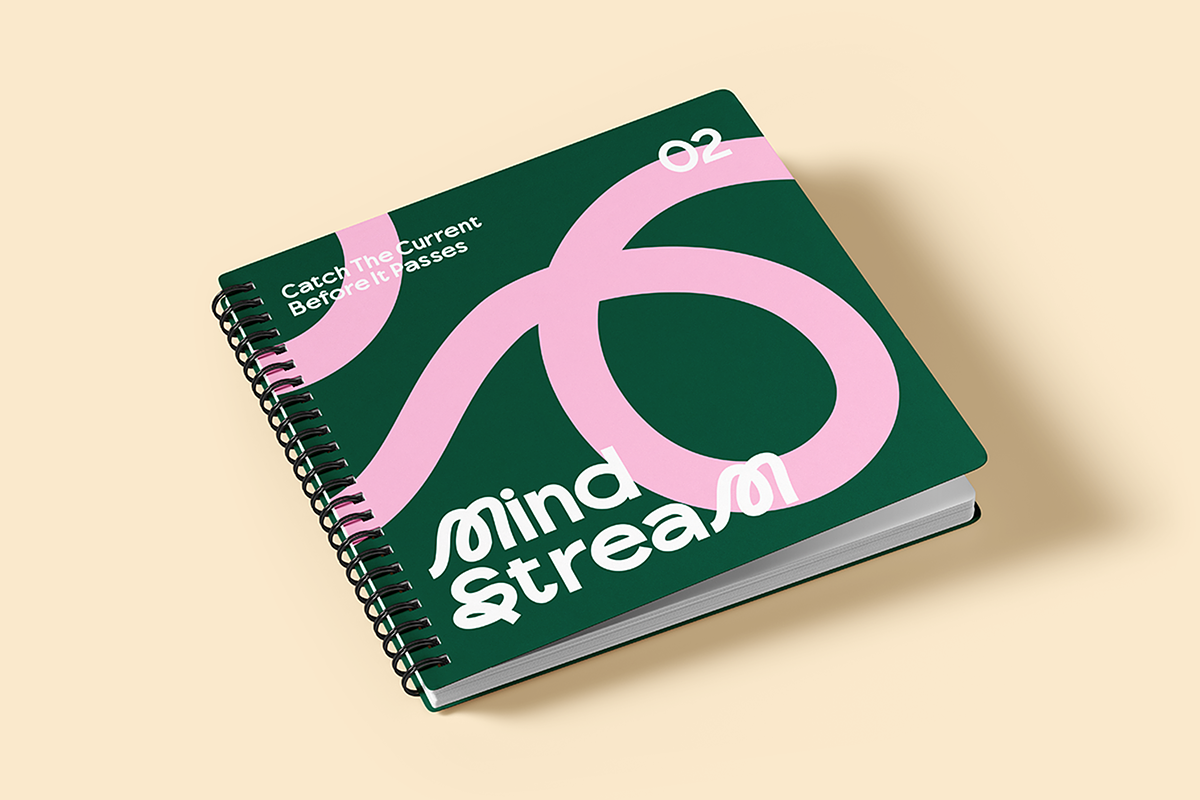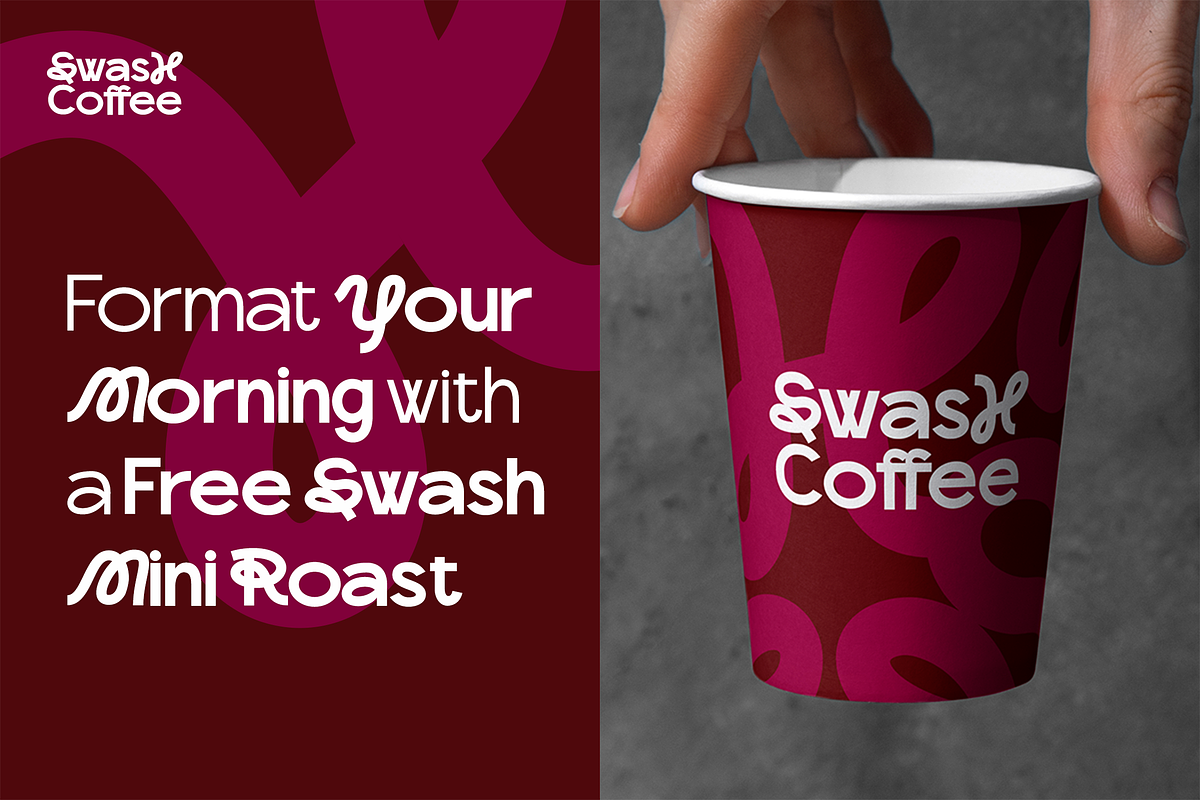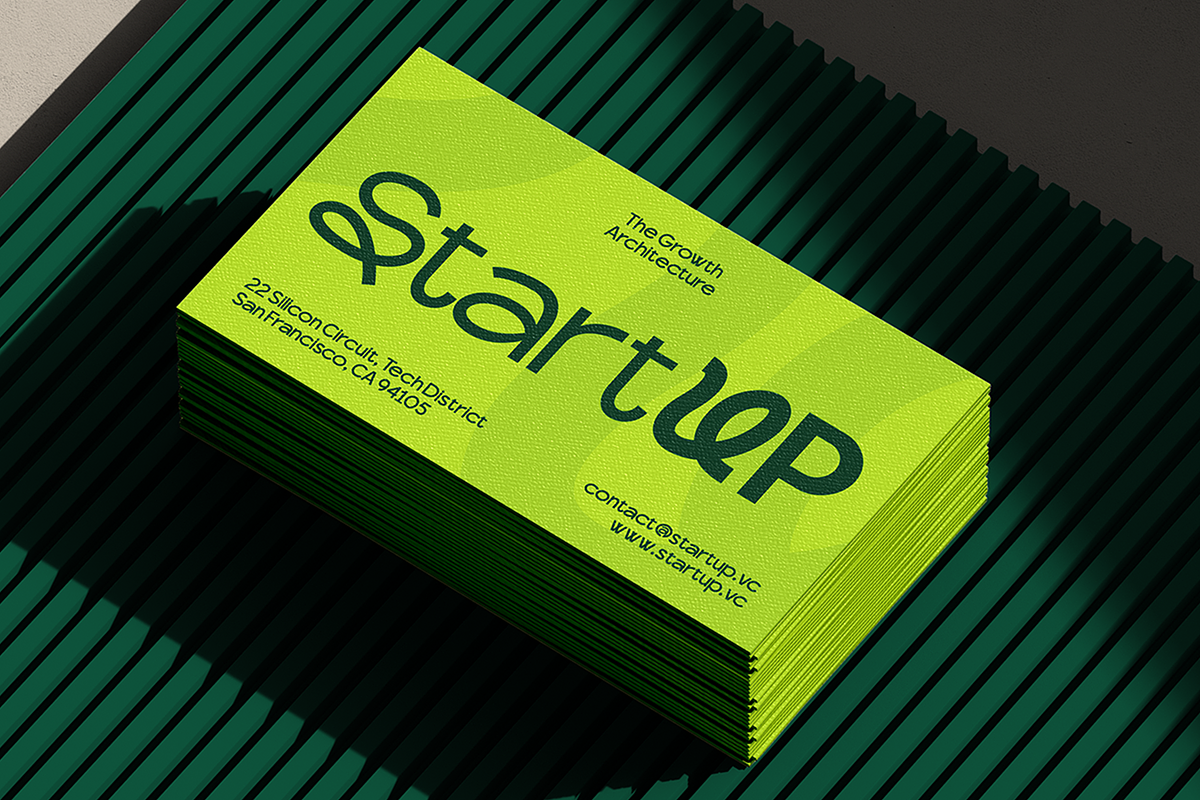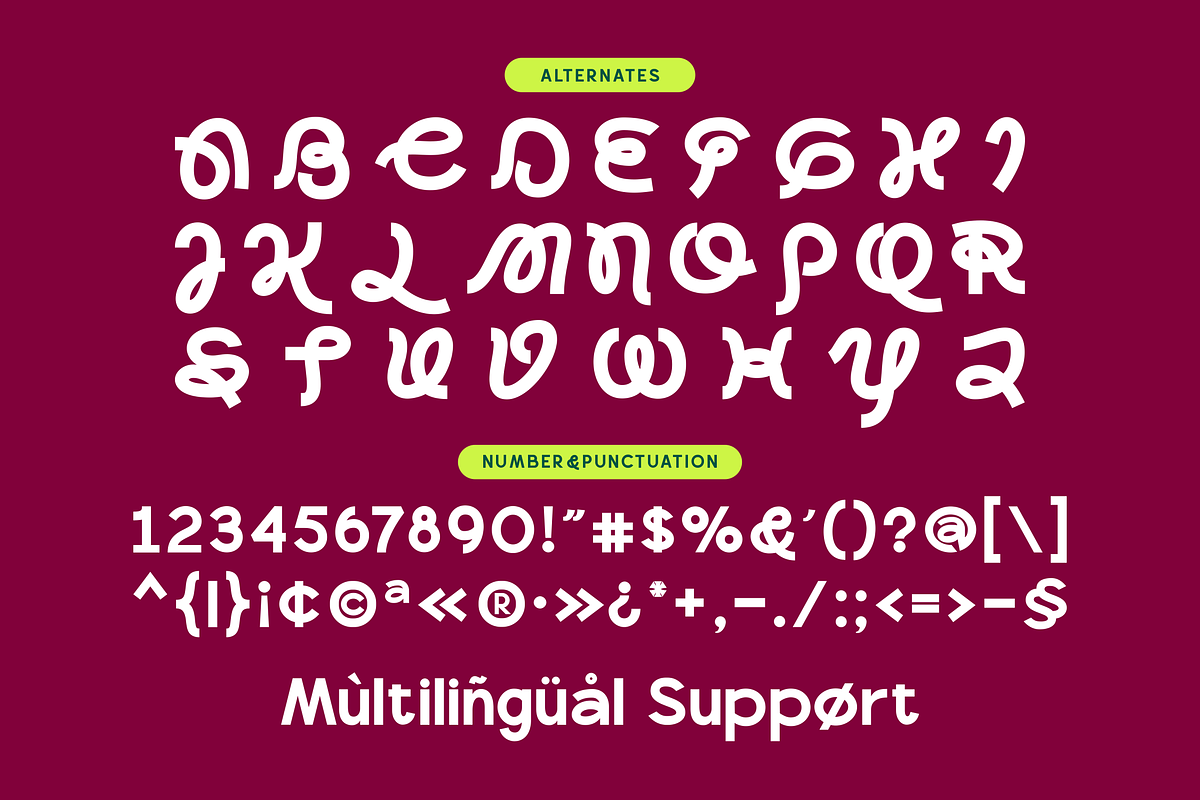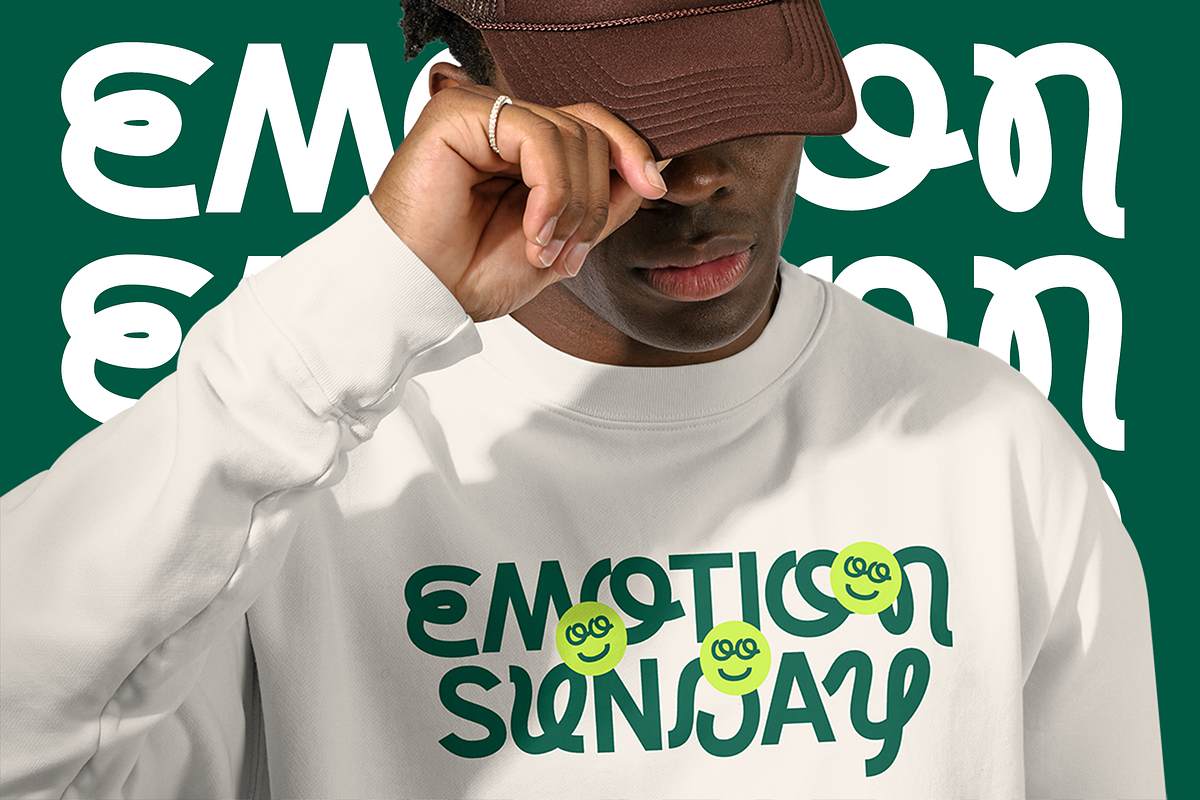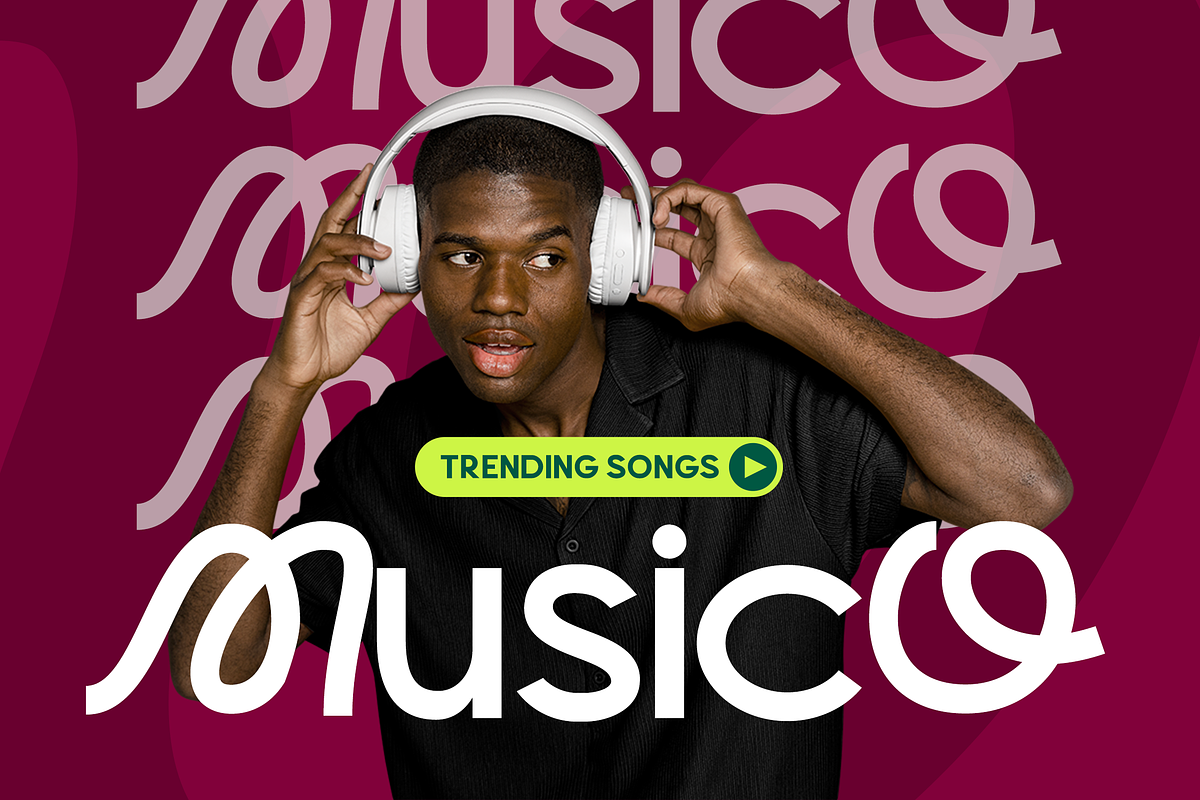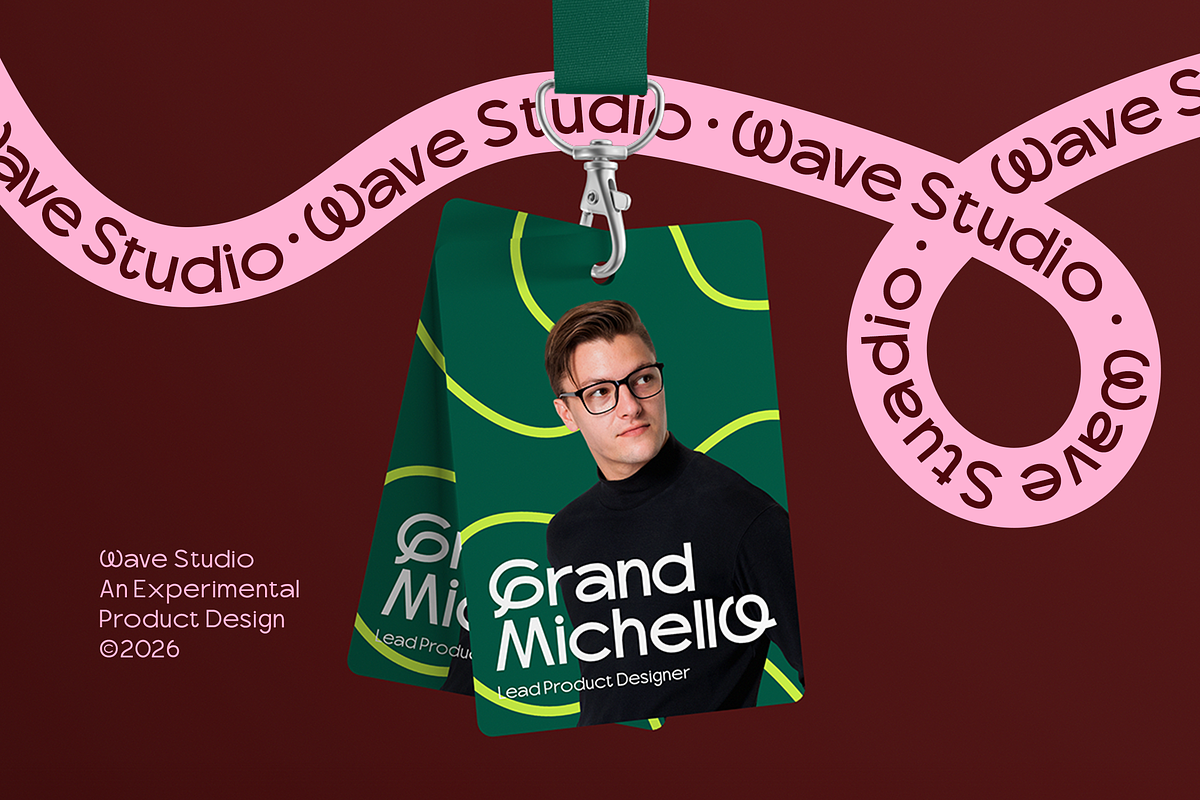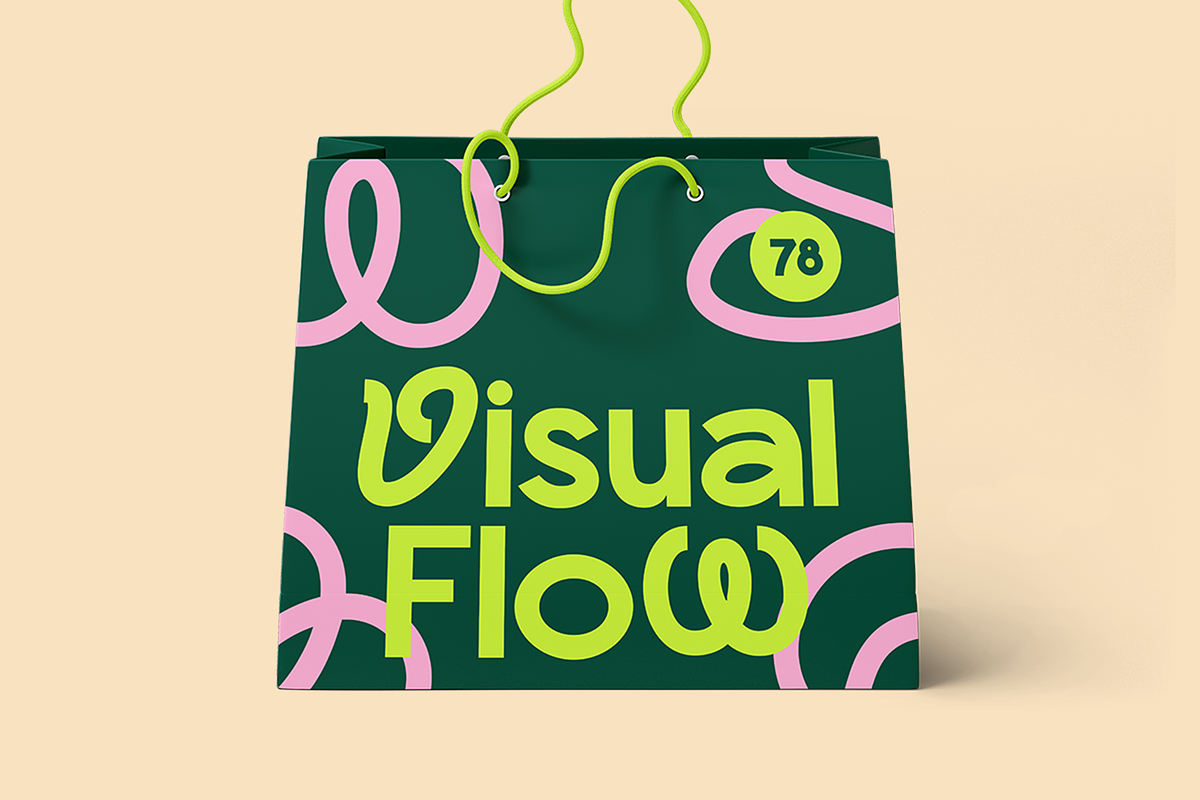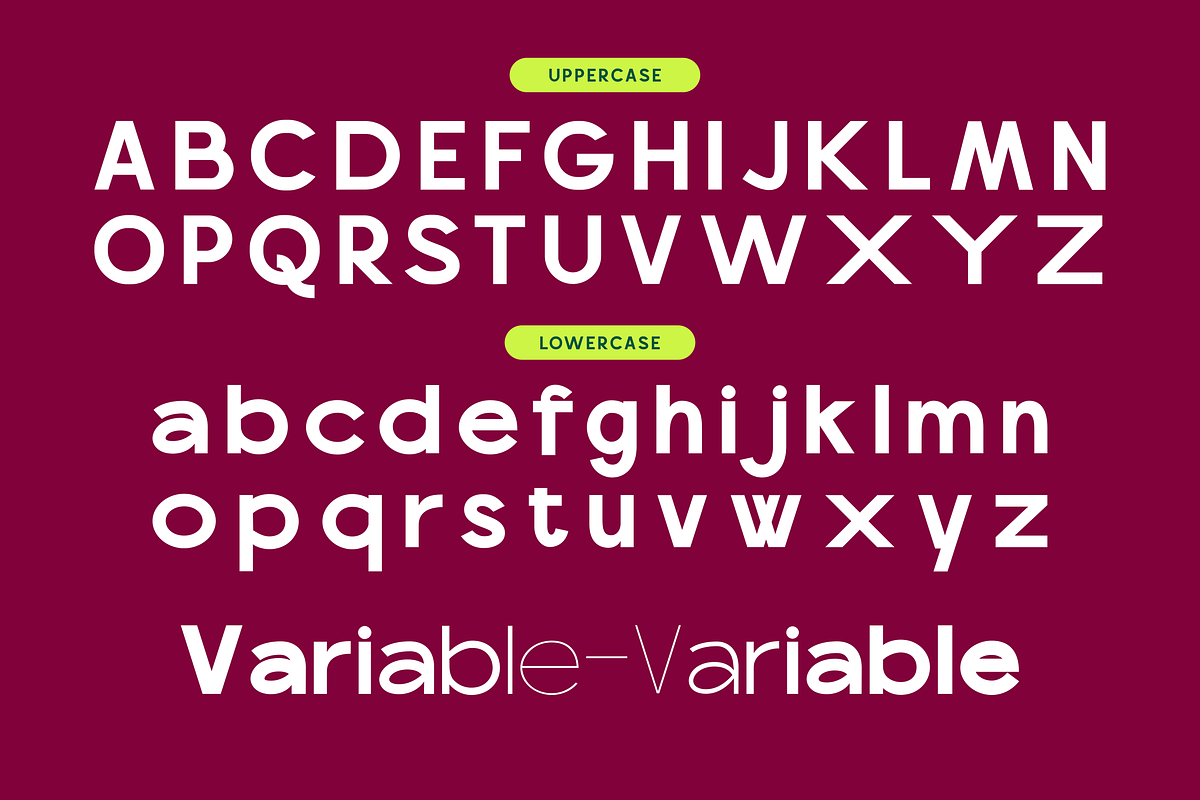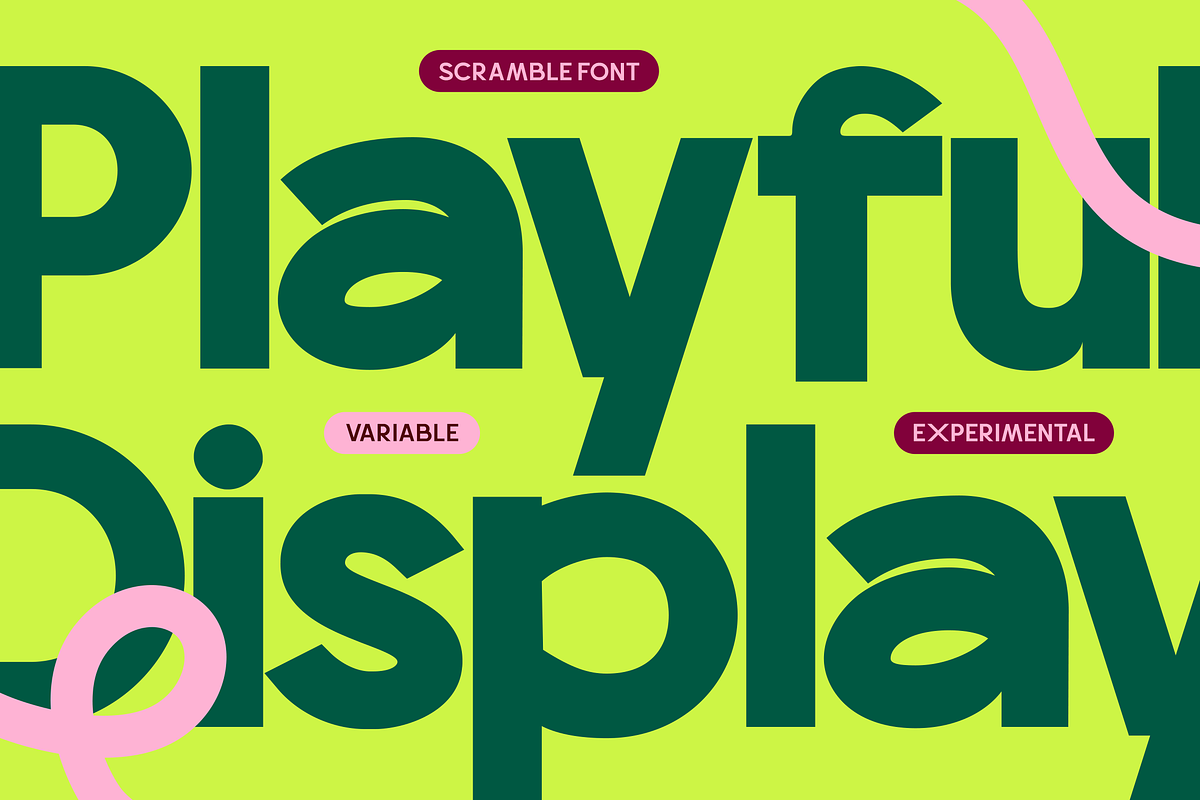
Scramble - Experimental Sans Family
Looking for an Experimental Sans Serif Font with Bold Personality and Playful Energy?
Meet Scramble, a variable experimental sans serif font family designed to bring movement, character, and fresh visual energy into modern design.
With chunky geometric forms, playful letter details, unique uppercase alternates, and a flexible weight range from Thin to Black, Scramble gives your typography a bold, expressive, and memorable voice.
Why You’ll Love It
Scramble combines a clean sans serif structure with playful experimental details, giving you the best of both worlds: expressive personality and real commercial usability.
Its distinctive letterforms create a strong visual rhythm, making every word feel more dynamic, fun, and full of character.
With multiple weights from Thin to Black, this variable sans serif font gives you freedom to build contrast, hierarchy, and flexible layouts across print, digital, packaging, branding, and editorial projects.
Flexible weight range from Thin to Black
Chunky geometric letterforms
Playful uppercase alternates
Clean and readable sans serif structure
Uppercase and lowercase letters
Numerals and punctuation
Bring a playful experimental edge into your next logo, packaging, poster, campaign, or digital design project with Scramble.